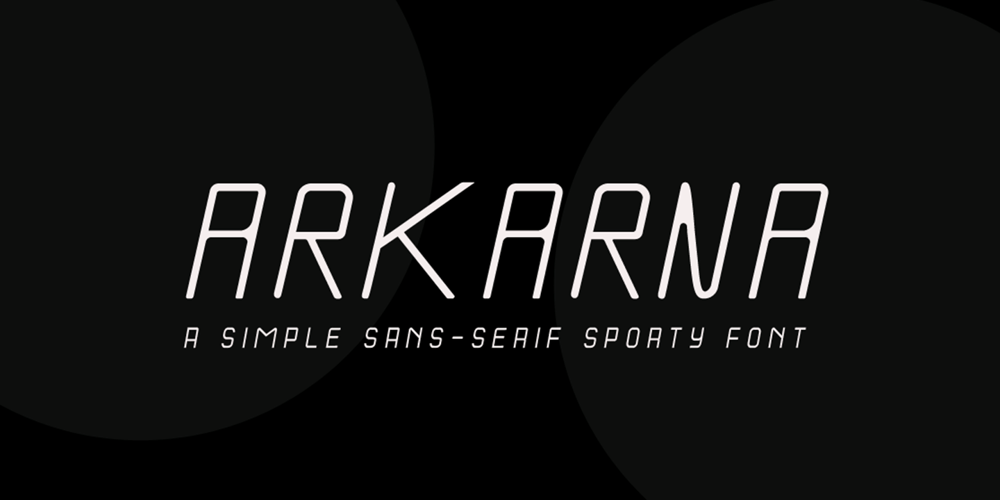
Arkarna Font Family was designed by Wahyu Edhi Widodo and published by Gatra Std. Arkarna contains 1 styles and family package options. Introducing a cute handwriting “ARKARNA” Simple Sans-Serif Font!If you are needing a touch of casual modern San-Serif for your designs, this font was created for you!What’s Included: Uppercase and Lowercase Number and Punctuation Support Language This font works best in a program that supports OpenType features such as Adobe Indesign, Adobe Illustrator CC and CS, or Adobe Photoshop CC and CS also CorelDrawMultilingual Support is included for Western European Languages